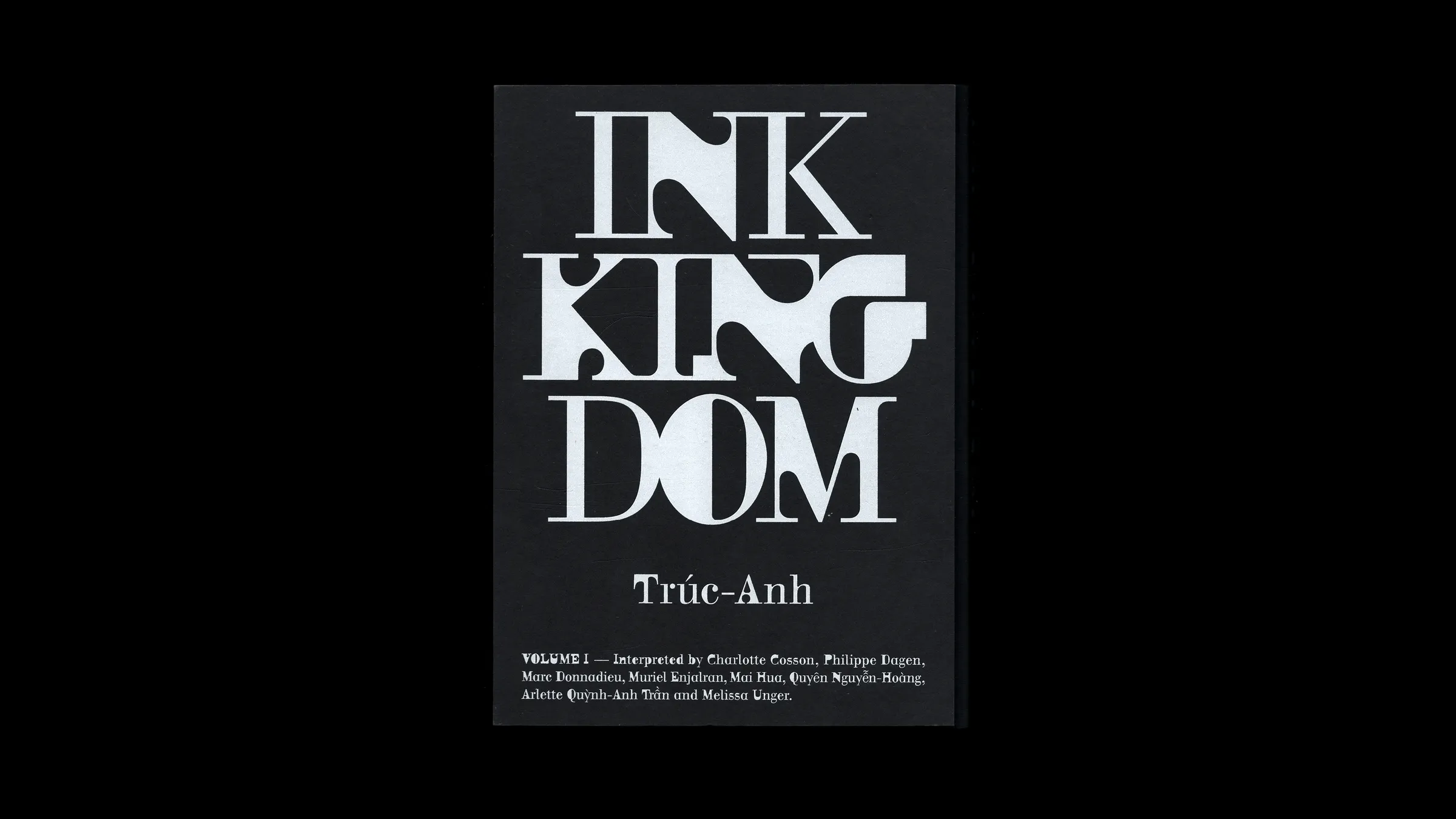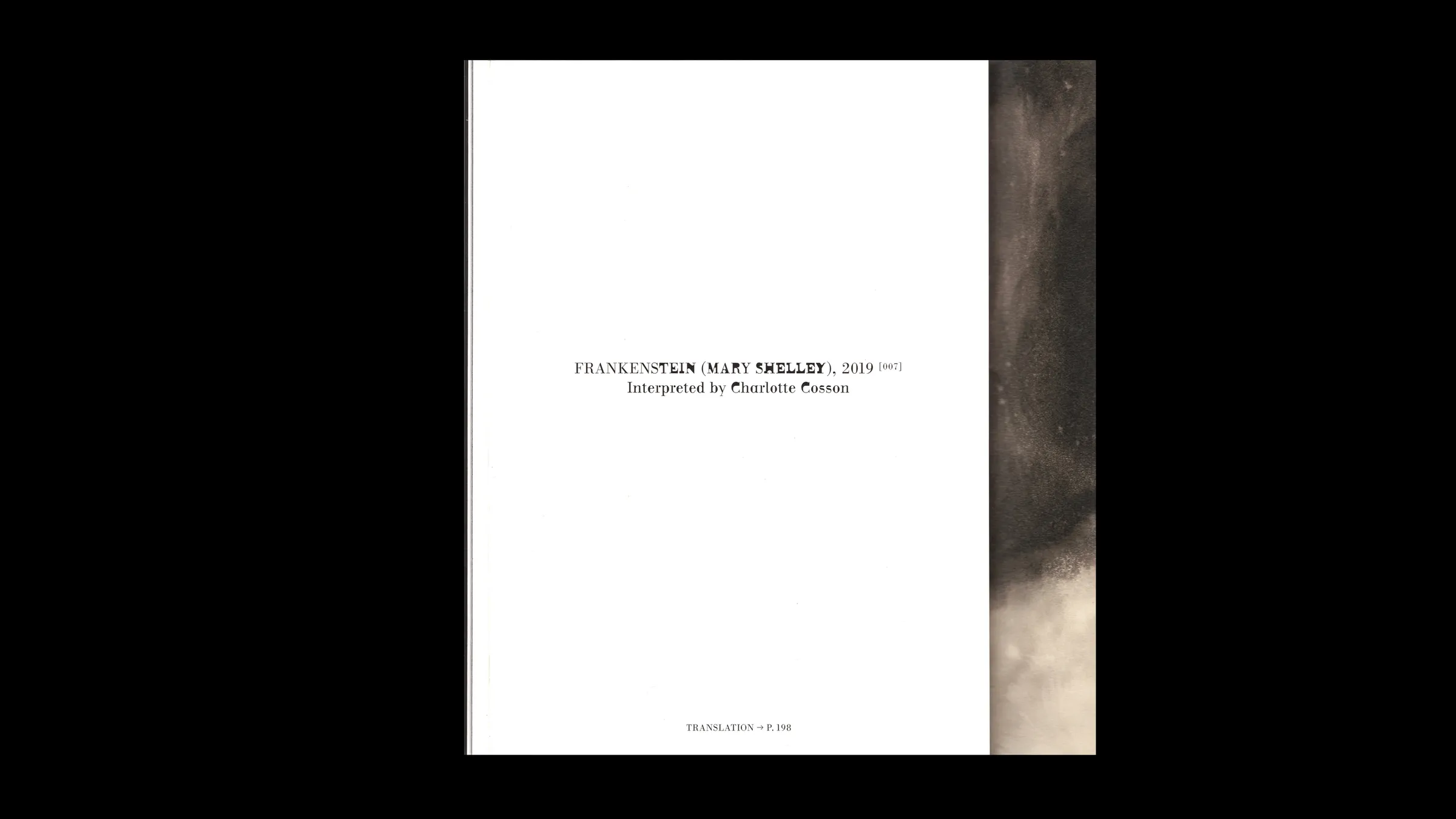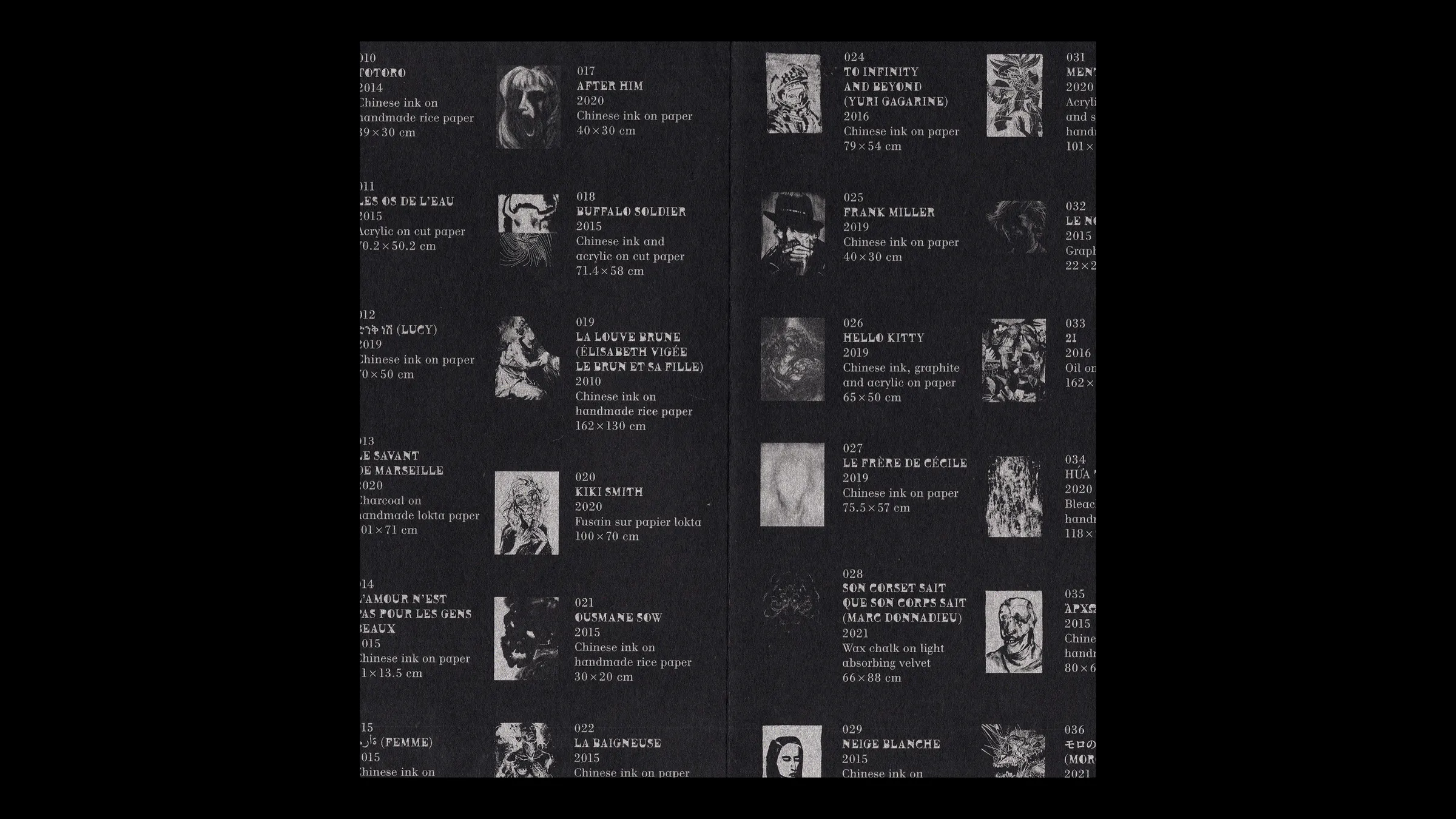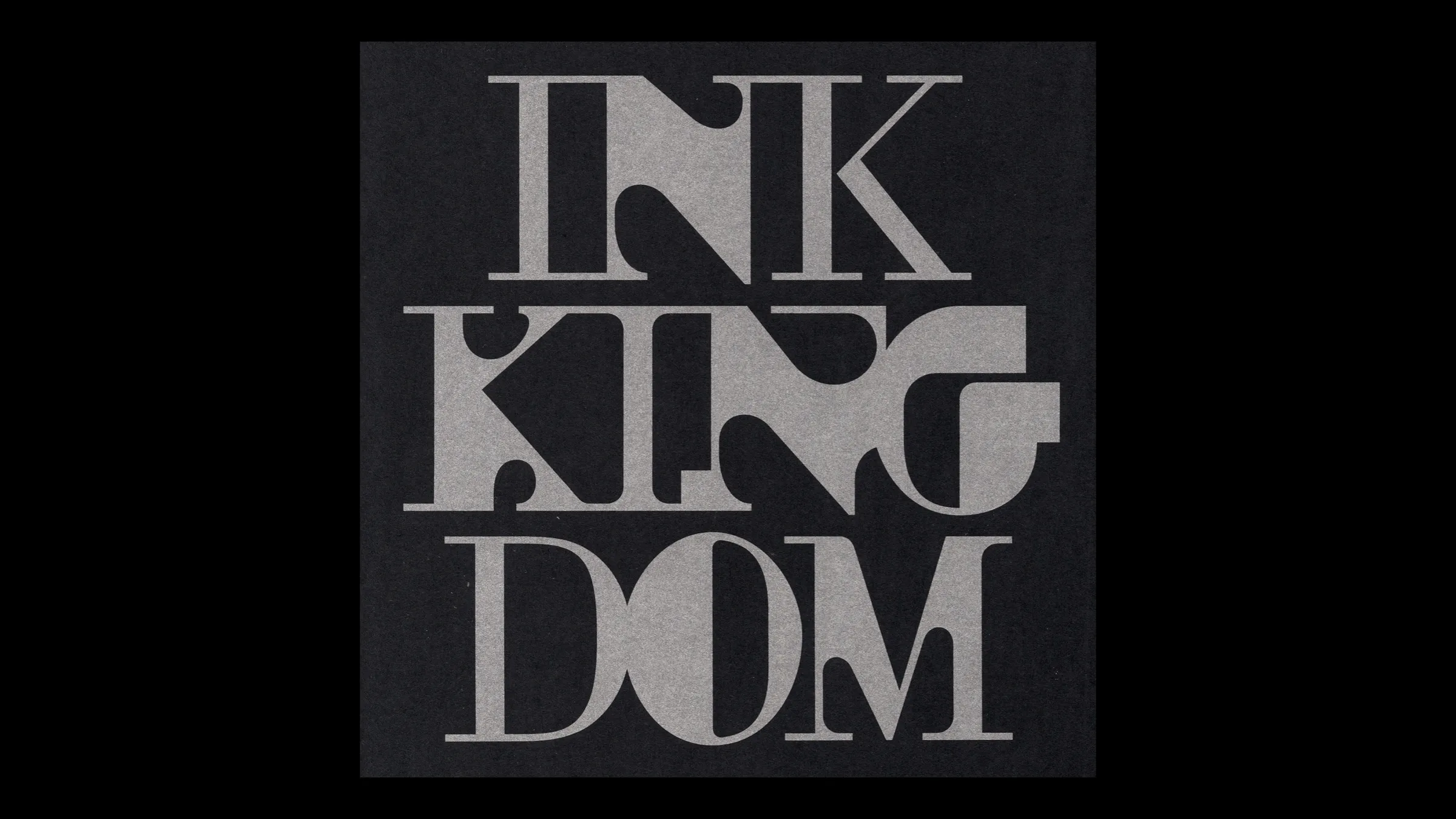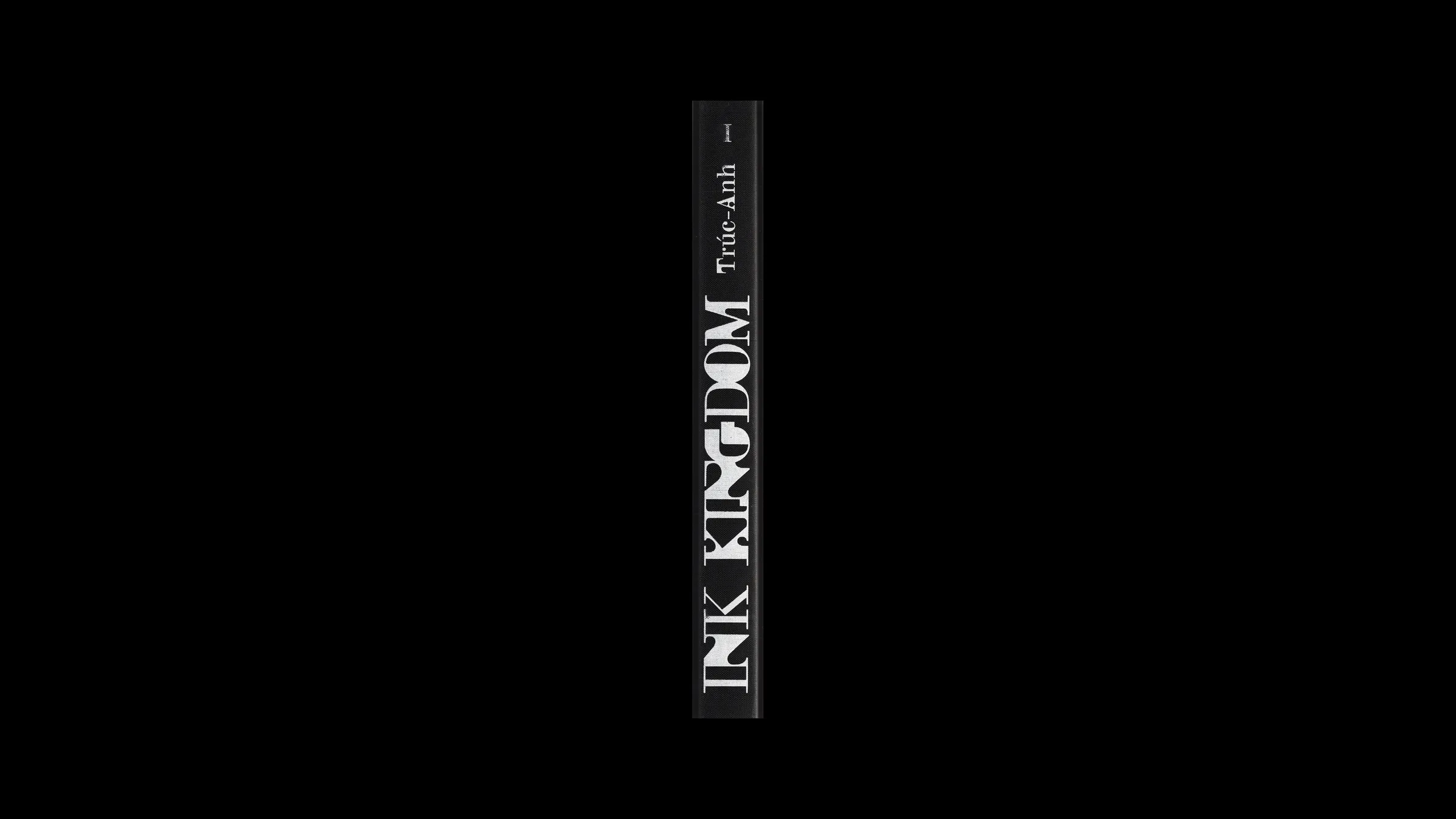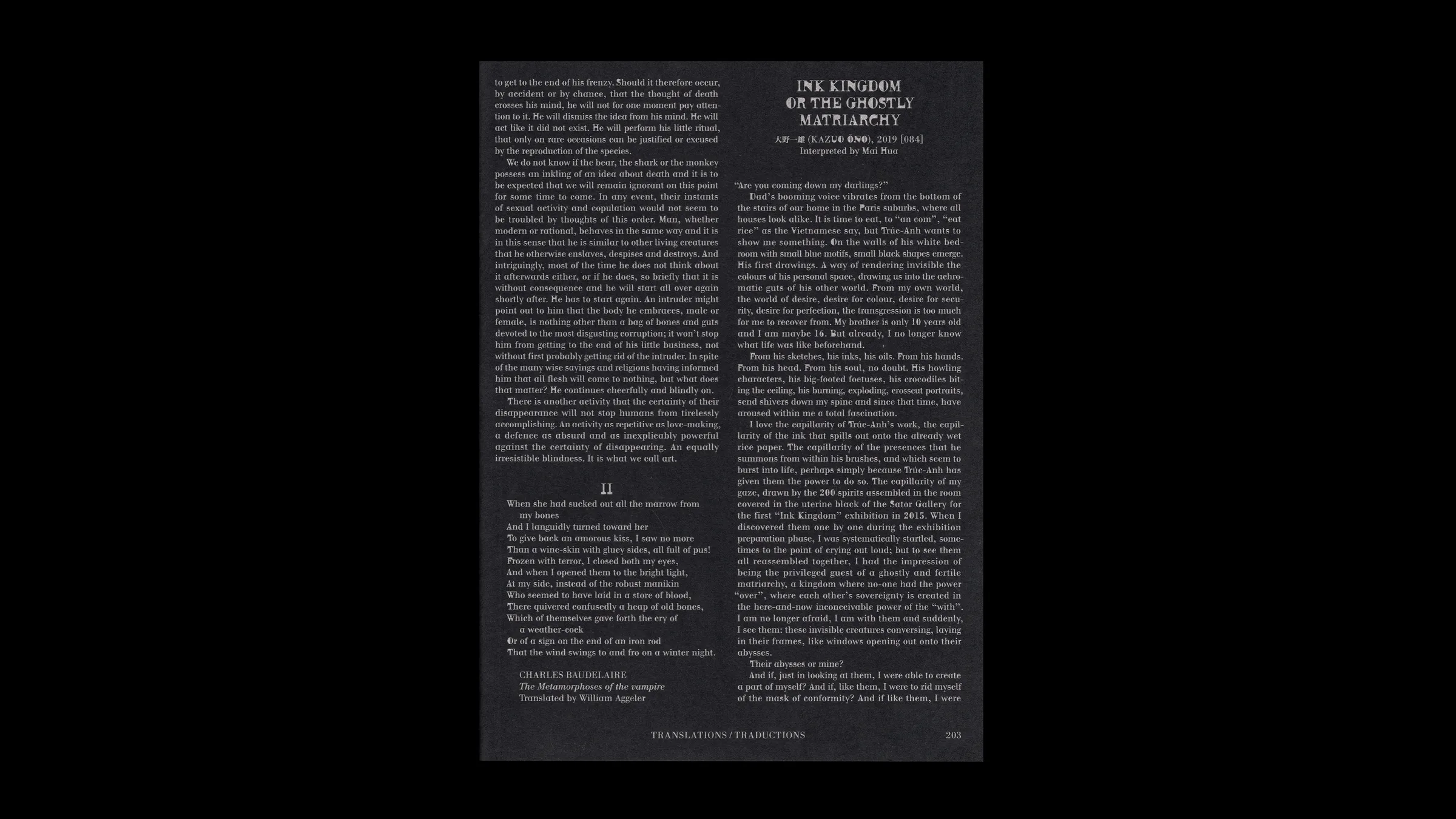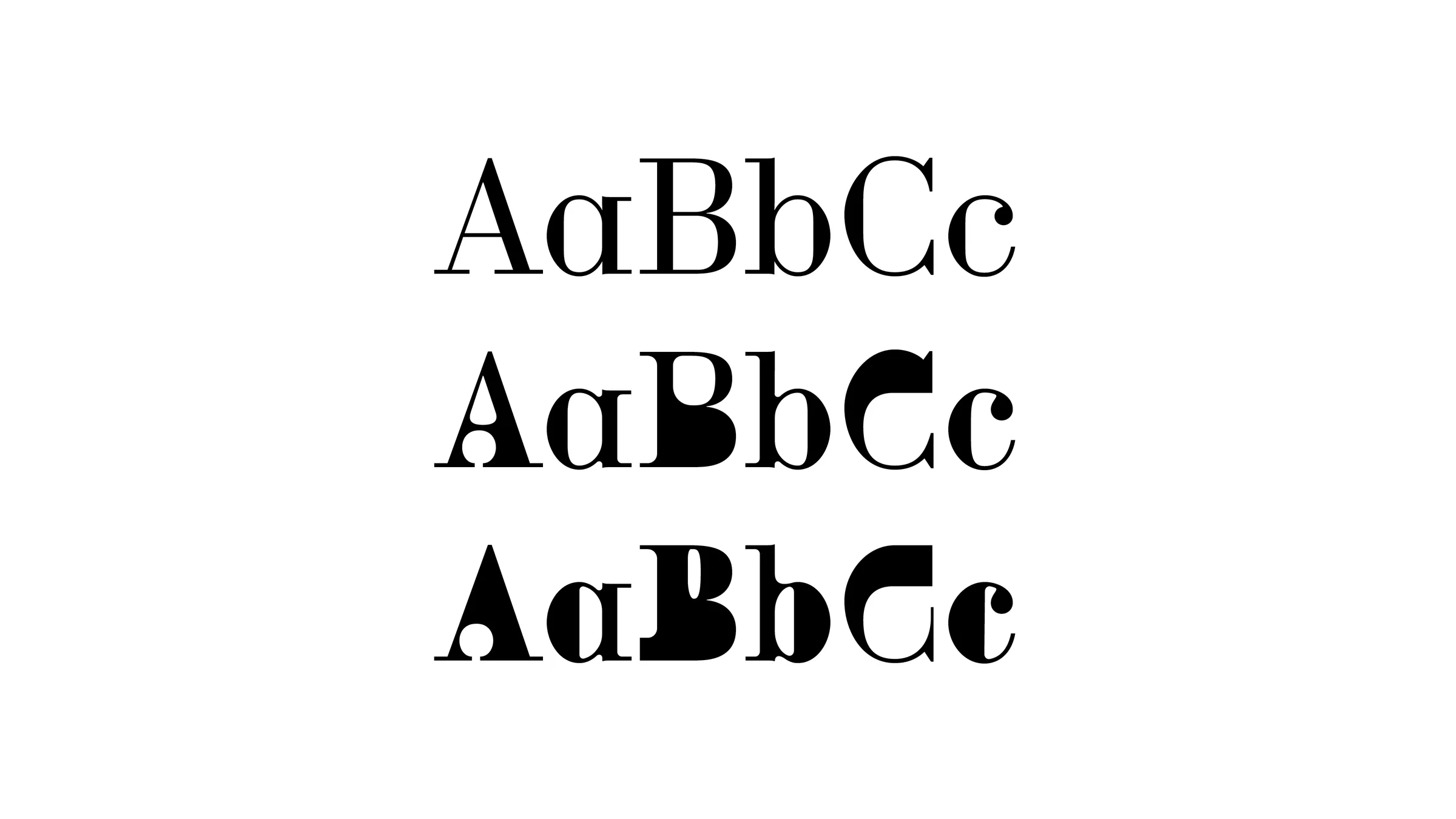
Ink Kingdom
For the first monograph of artist Truc Anh, we collaborated with Napo People (Registo Setti and Simon Palmieri) to design a custom typeface. This font is a modified, inked-up version of BodoniET, originally created by François Rappo. Technically, the typeface was developed in three weights, each offering varying levels of “inked” texture and legibility. These three versions are mixed throughout the book—sometimes randomly within the same text block—to create a dynamic inking effect that echoes the expressive, layered quality of Truc Anh’s work. Napo People integrated this reinterpretation into the book’s design, resulting in a striking publication printed in white and silver on deep black paper.